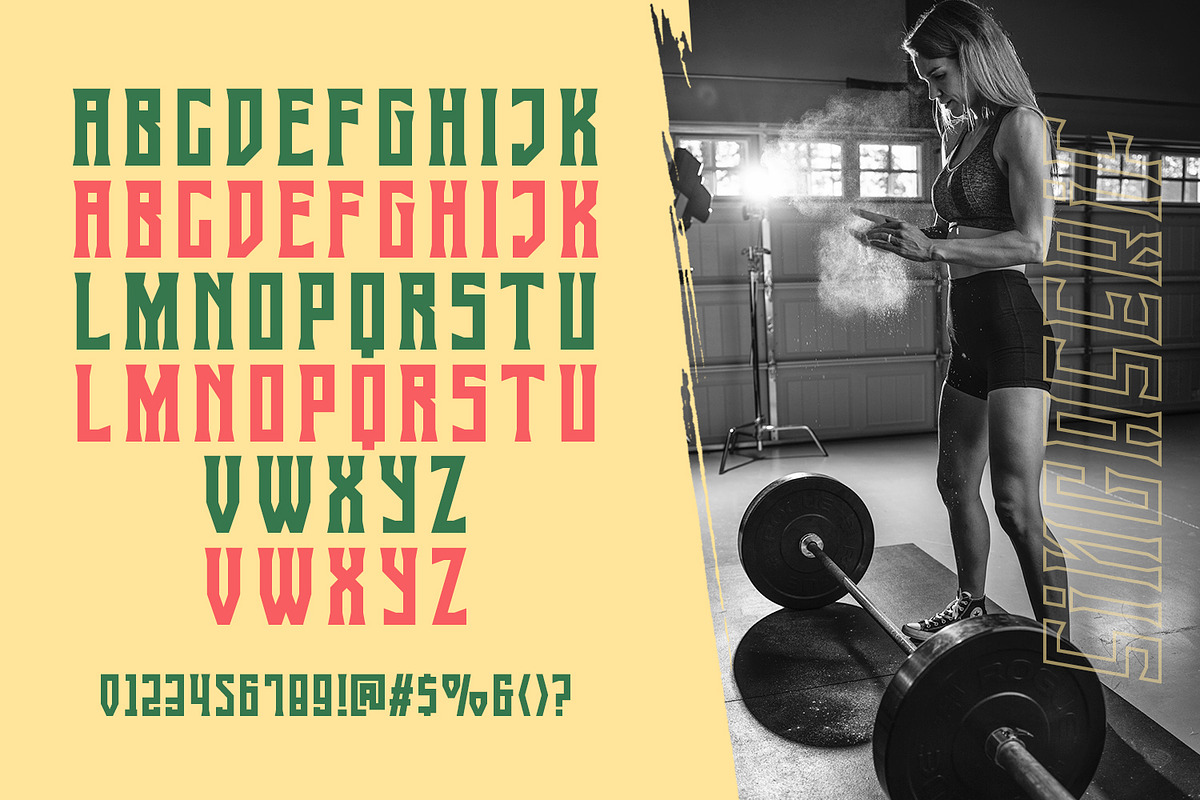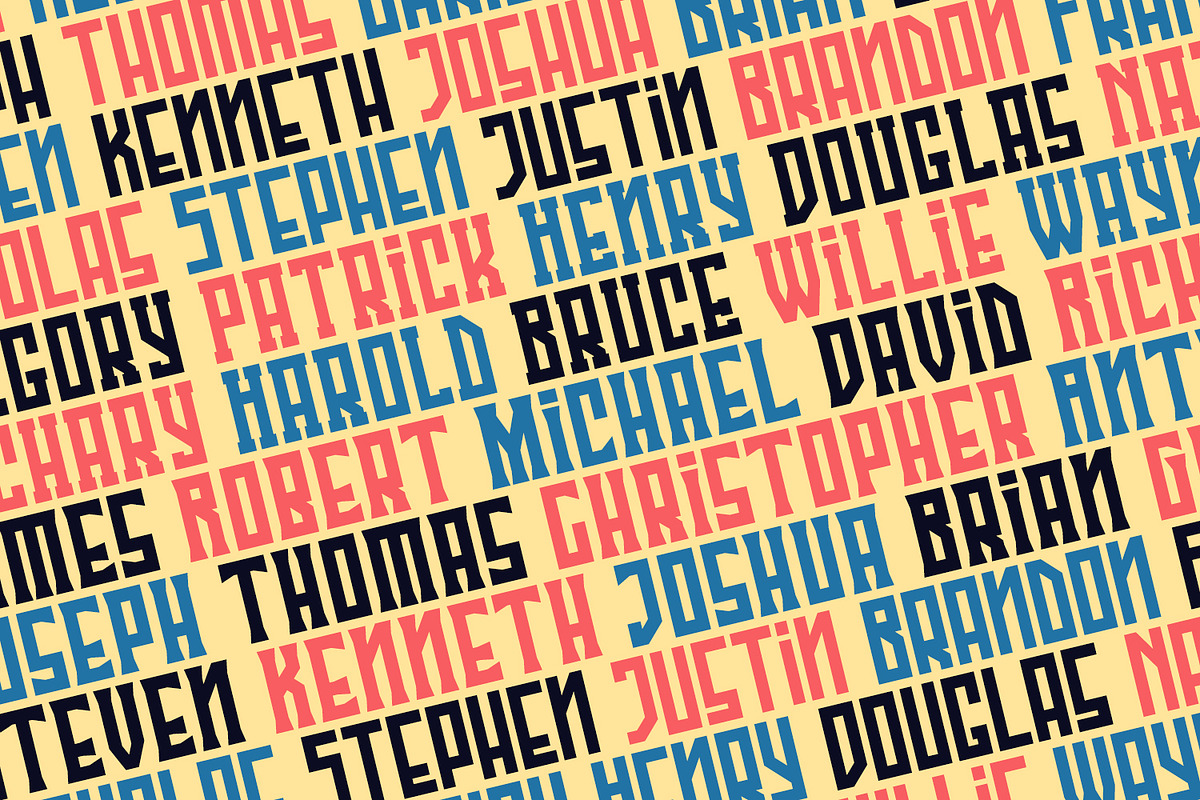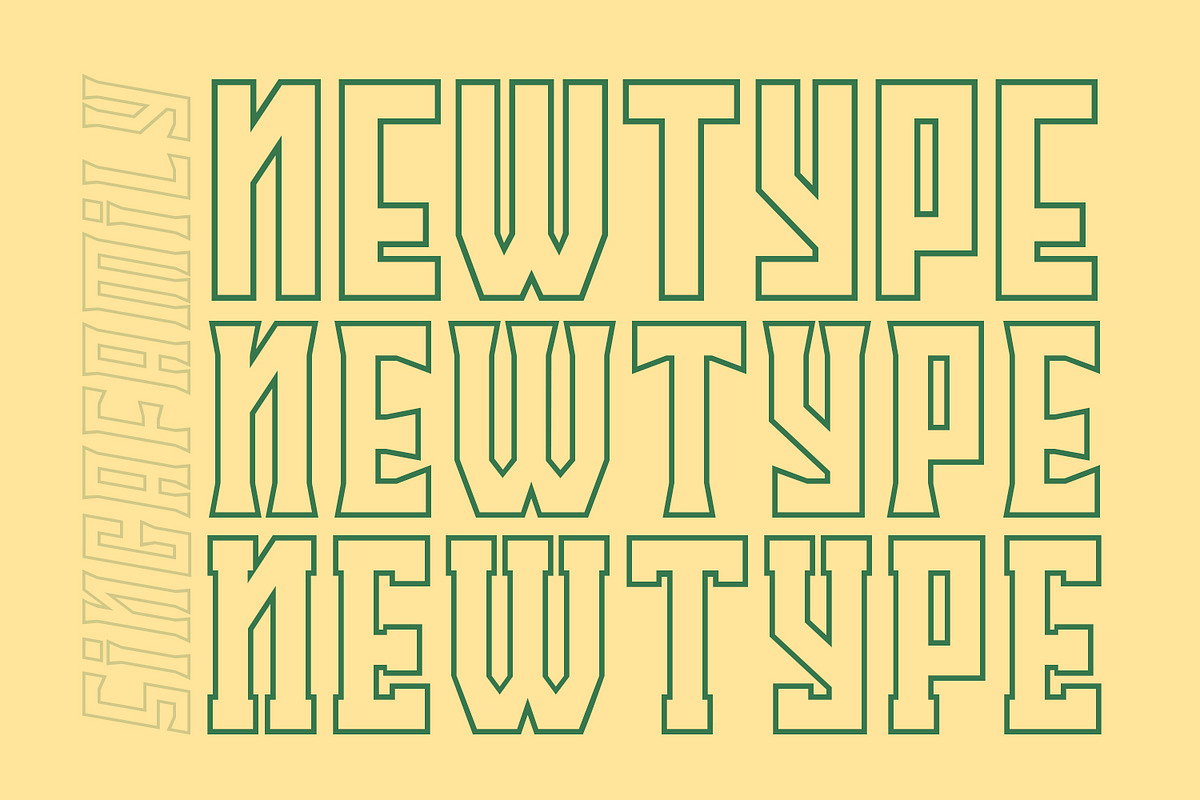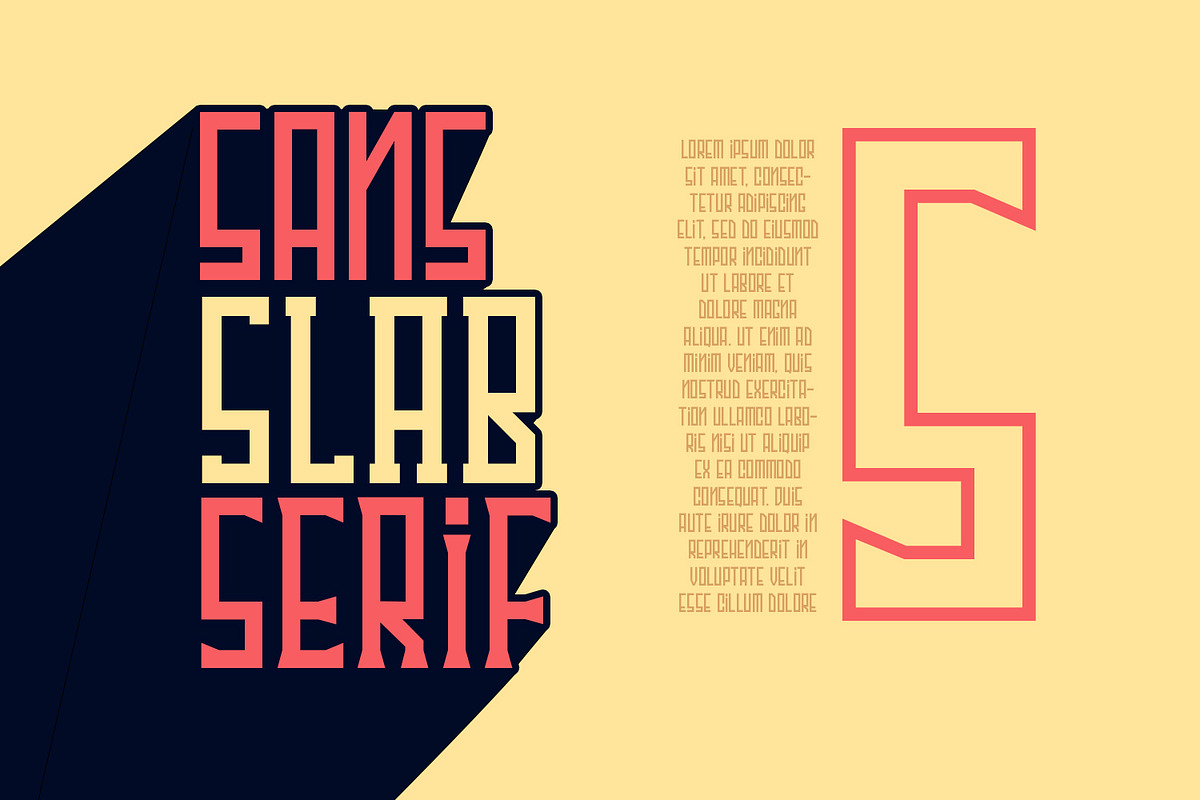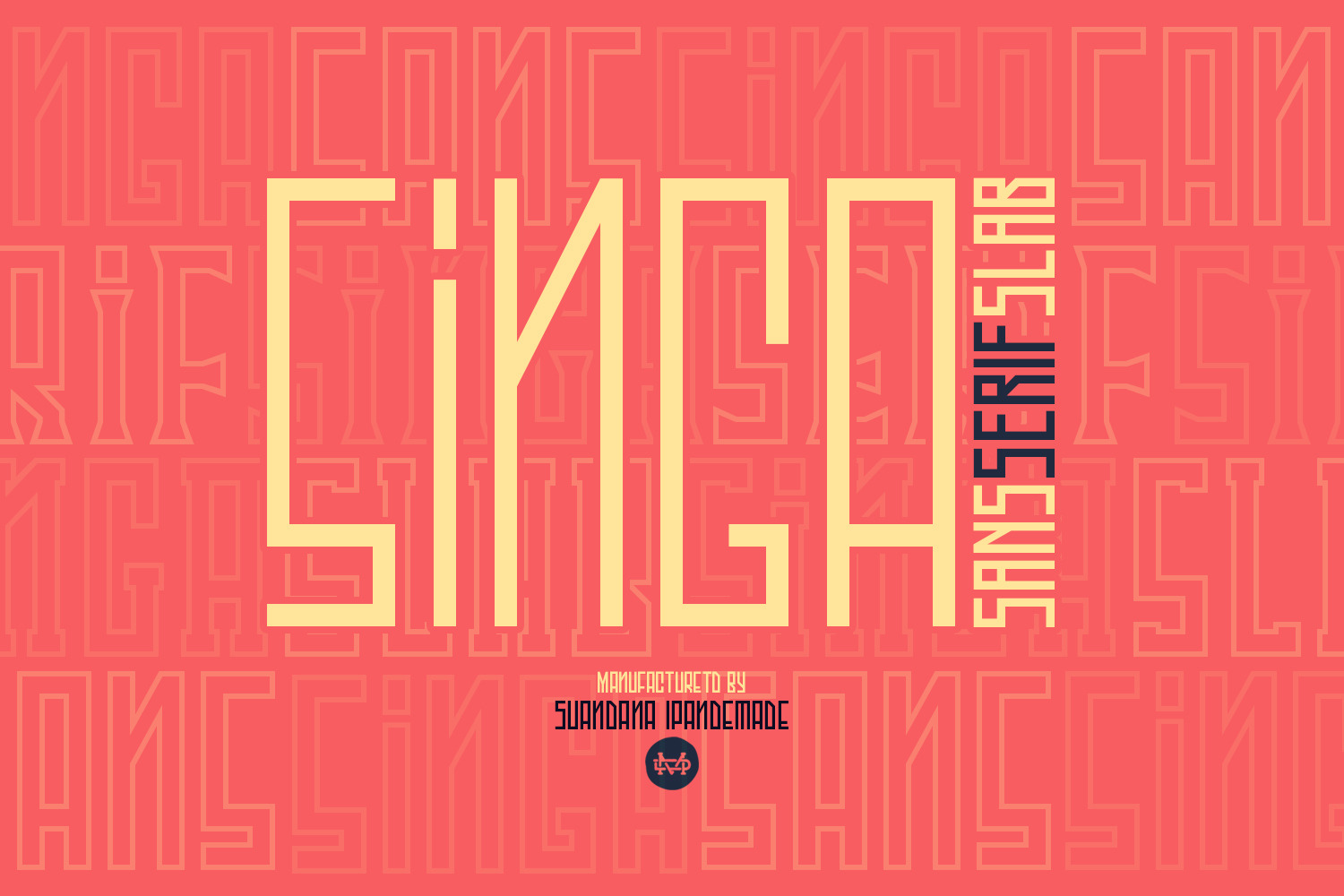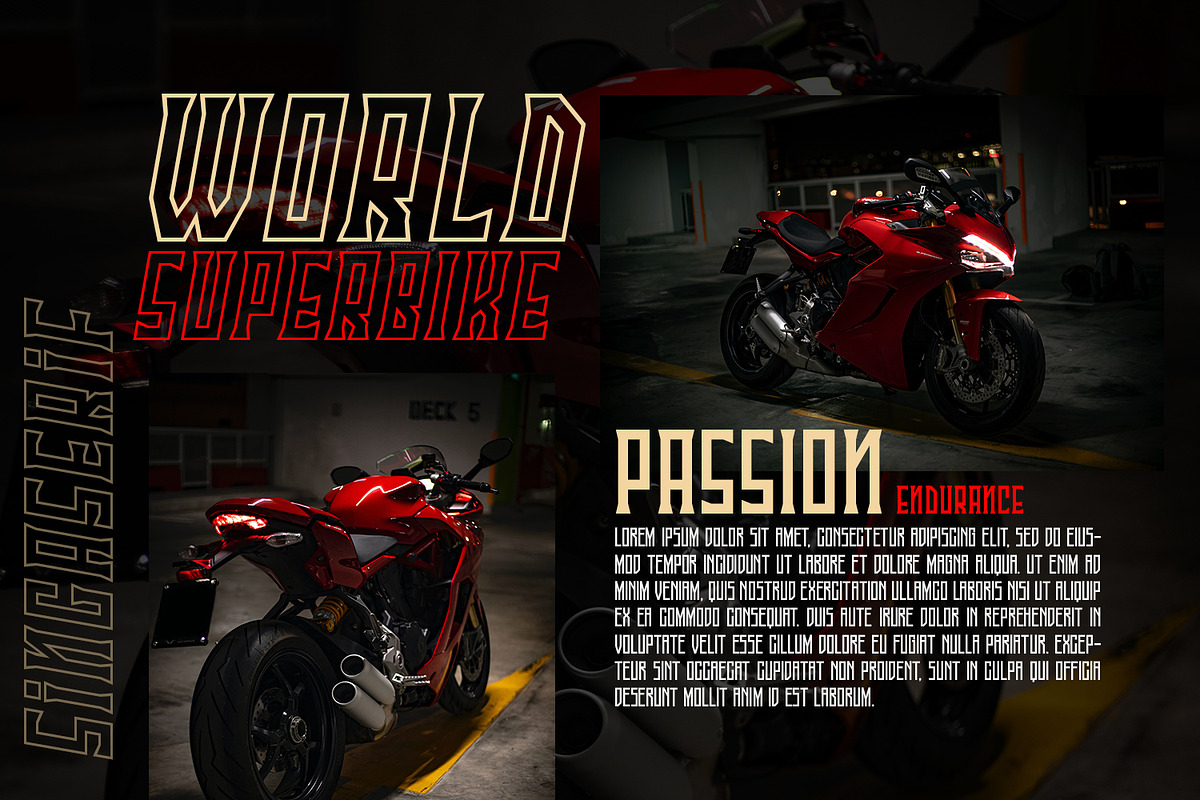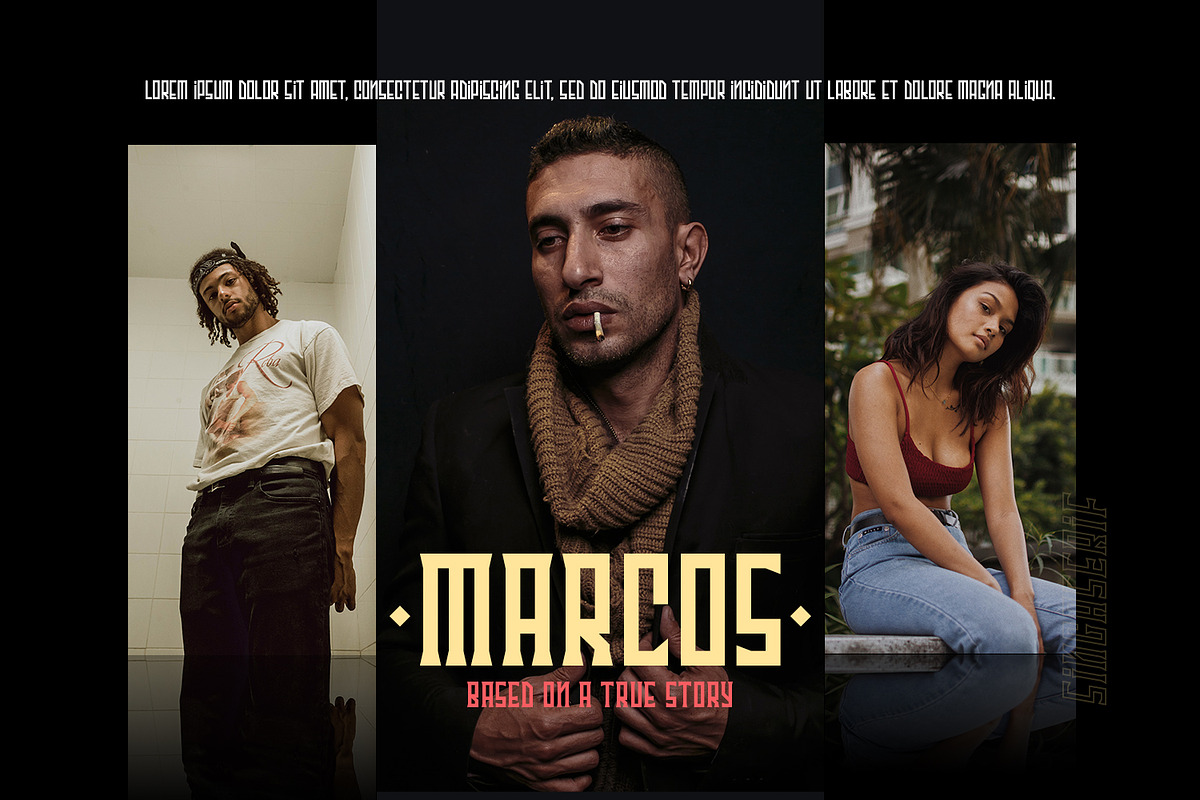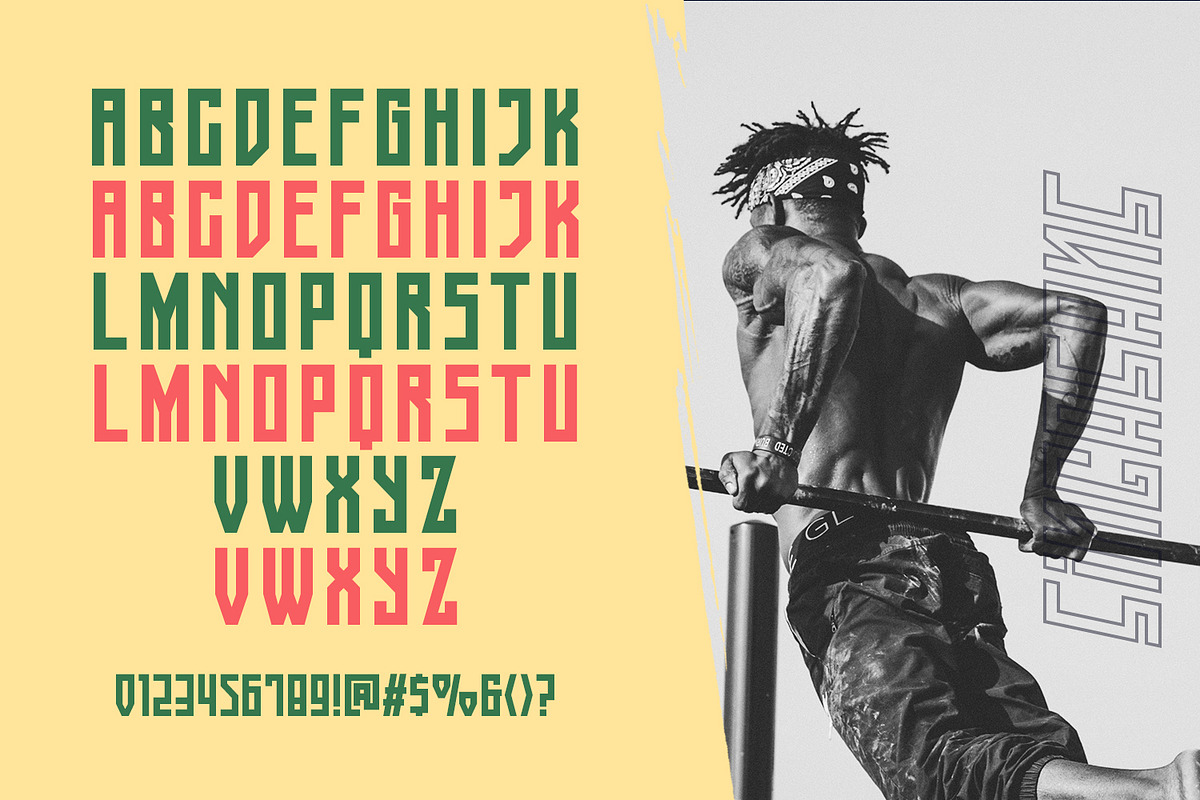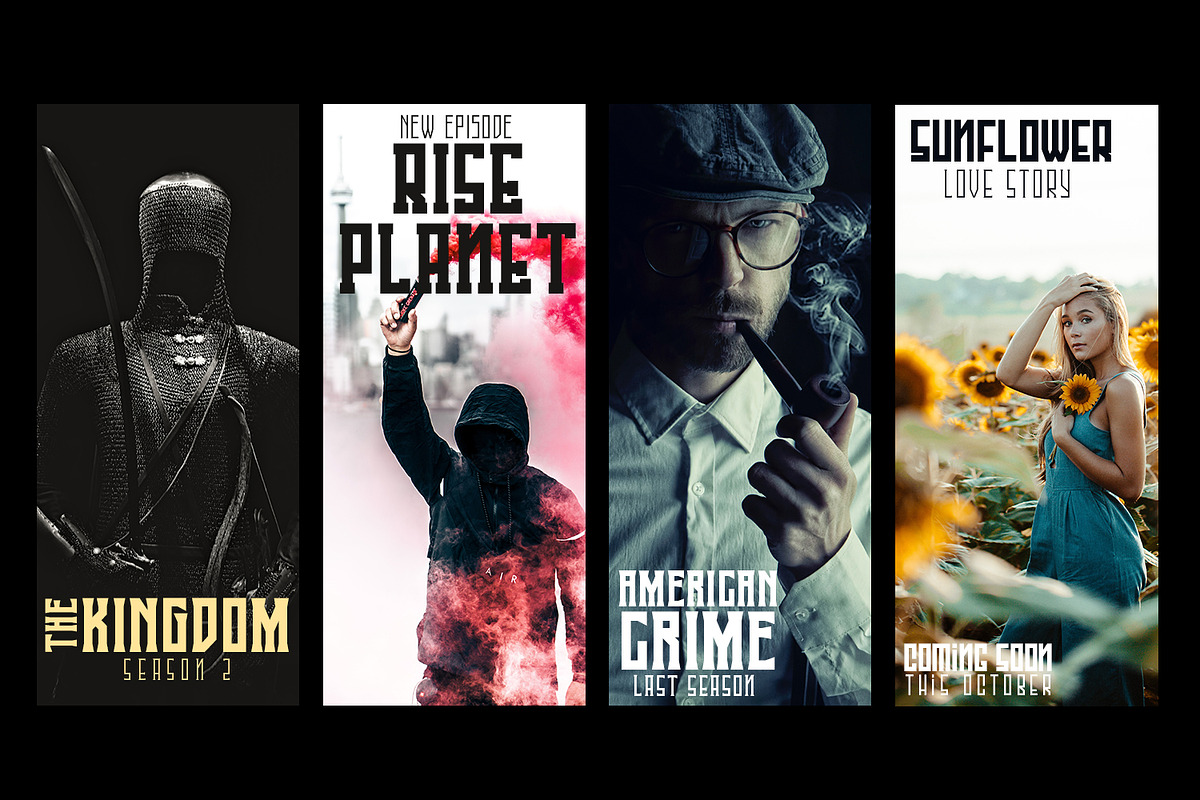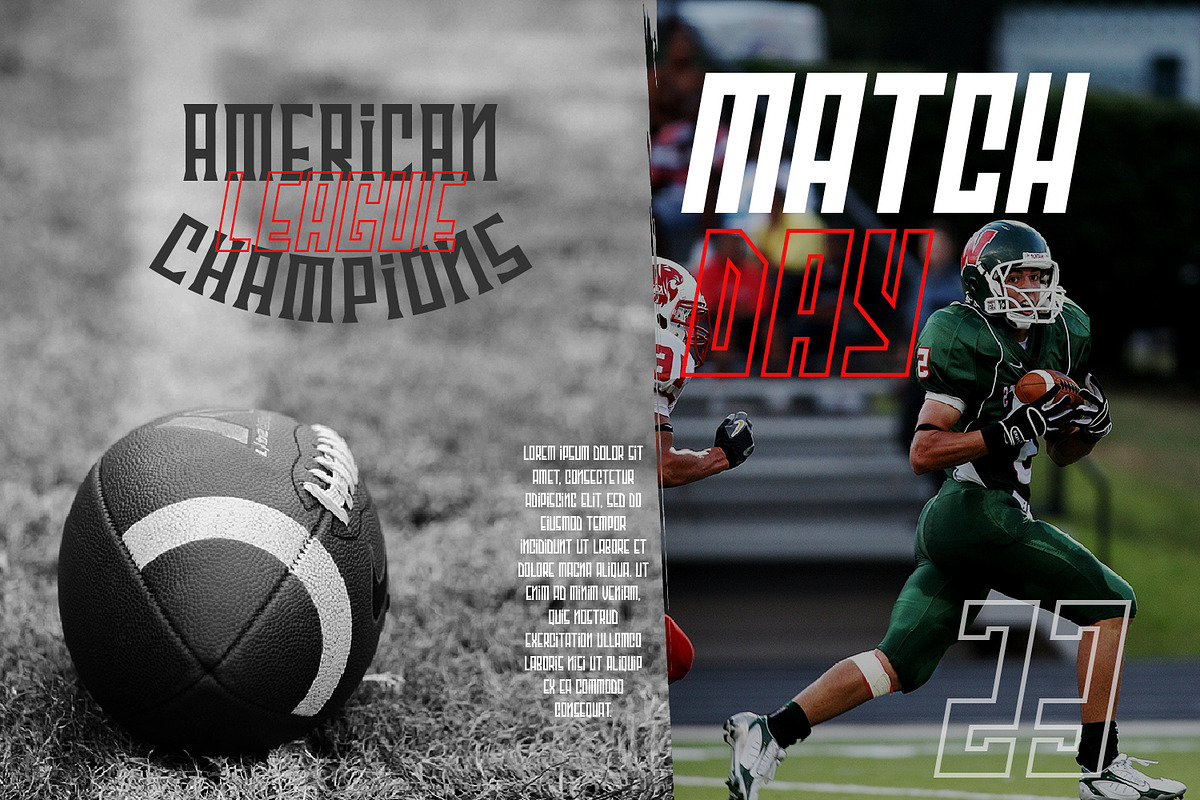
Singa - Family Font
Introducing Singa is a three distinct classic casual family comes with 9 variable weight to get more stunning. Use this font family for any branding, product packaging, invitation, quotes, t-shirt, label, poster, logo etc.